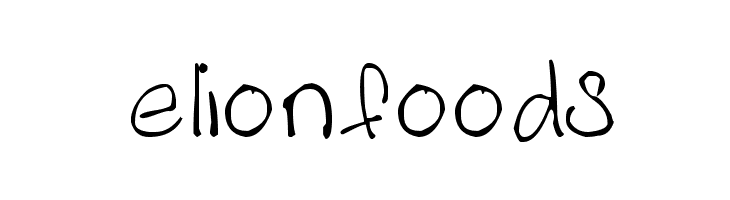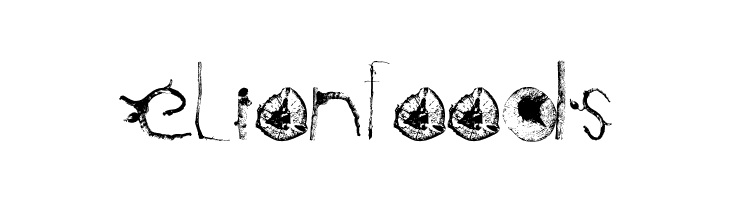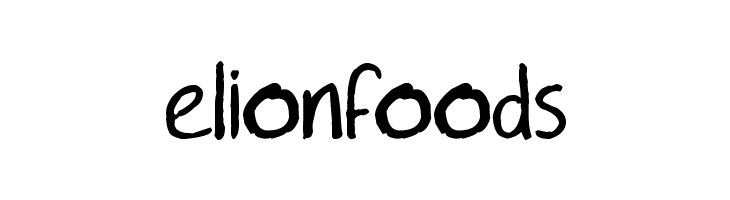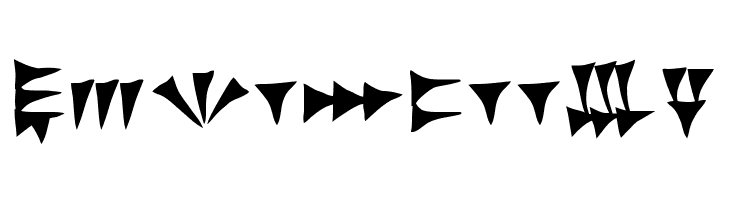
A decorative font with a woven, textile-inspired pattern.
A rugged, textured font with a natural, handcrafted appearance.
A decorative font featuring intricate batik patterns within each character.
A rustic, handcrafted font with a woodcut print style.
A playful, casual handwritten font with uneven strokes and a natural flow.
A geometric, Greek-inspired font with bold, angular lines and intricate patterns.
An ornate and elegant font inspired by traditional calligraphy, featuring bold, flowing curves and intricate details.